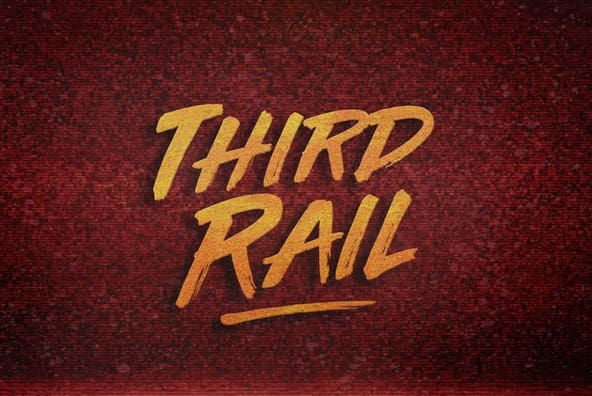
Third Rail Font
Third Rail Font is a daring brushed display font. It features an urban vibe and it can be employed to a variety of designs. Have fun with this beautiful font and explore its endless variations